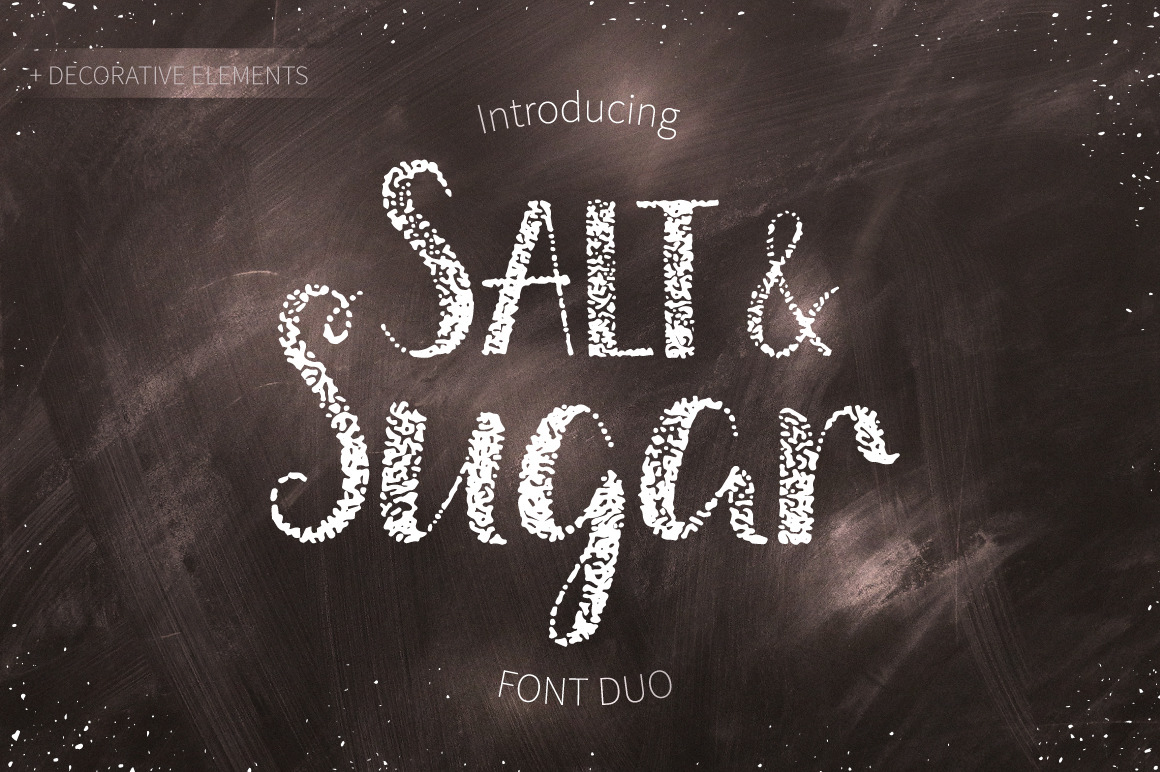
Salt & Sugar.Hand Drawn Font Duo
Salt & Sugar is a handwritten font duo (sans serif and script) in uppercase and lowercase. It is perfect for branding, packaging design, posters, stationery, cards and much more.
Language support: it supports most of European languages (please test your language in the test window below)